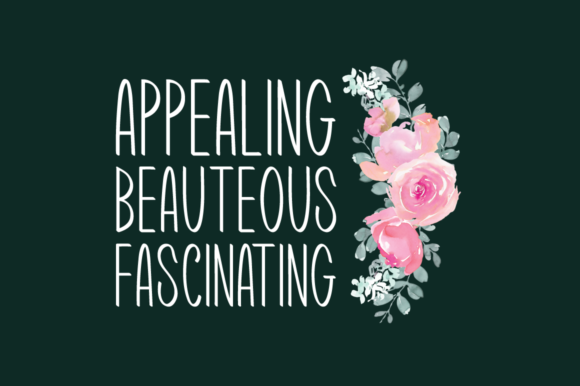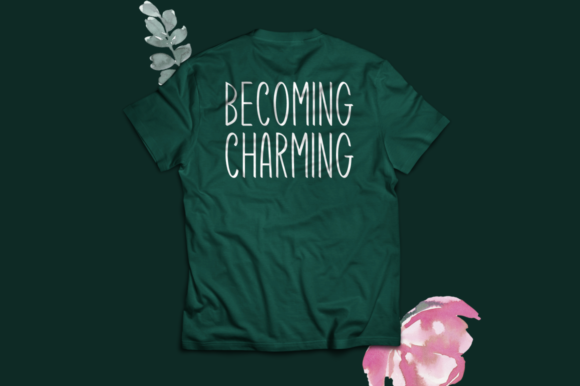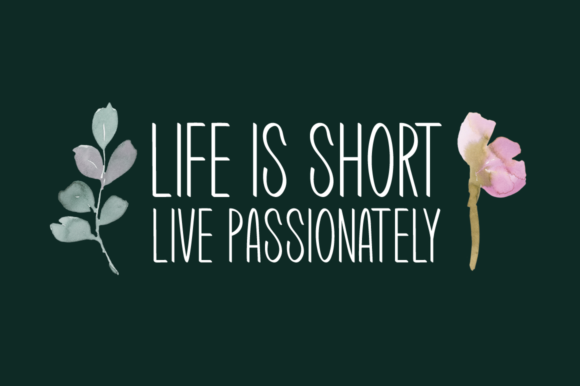
Introduction to Imagination Font
Imagination is a brand new display font.
Imagination is perfectly suited for stationery, logos, t-shirt, paper, print design, website header, photo frame, flyer, music cover, poster, image slider and much more .